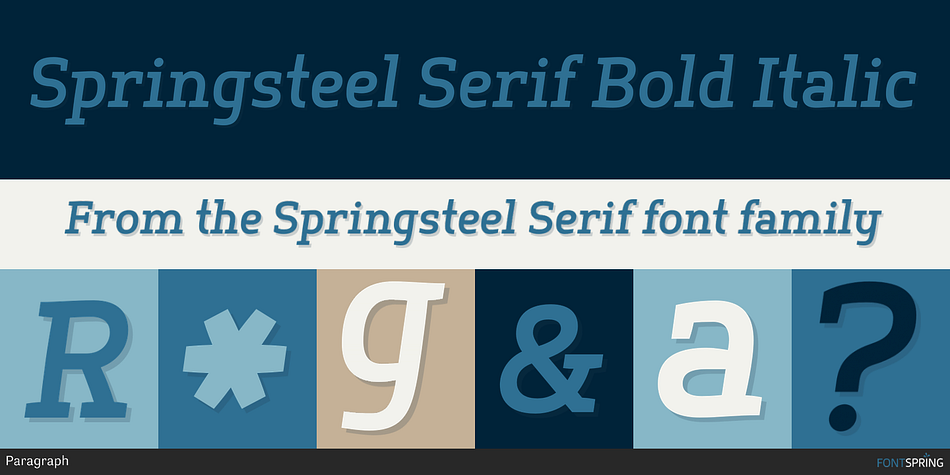
Springsteel Serif is a slab serif font family. This typeface has twelve styles and was published by Paragraph.
Springsteel Serif Bold Italic
A companion to Springsteel (sans), this serif typeface is intended for longer text blocks and smaller sizes.
Like the sans-serif, it has unusual construction using curves on the outside and straight lines inside characters, giving it quite an expressive and warm feel. It contains small caps and old-style figures, as well as superior/inferior figures and common fractions and mathematical symbols. It supports Western plus Nordic, Eastern European and Turkish languages.
Excellent spacing and extensive kerning (over 2800 pairs) provided by Igino Marini/iKern.